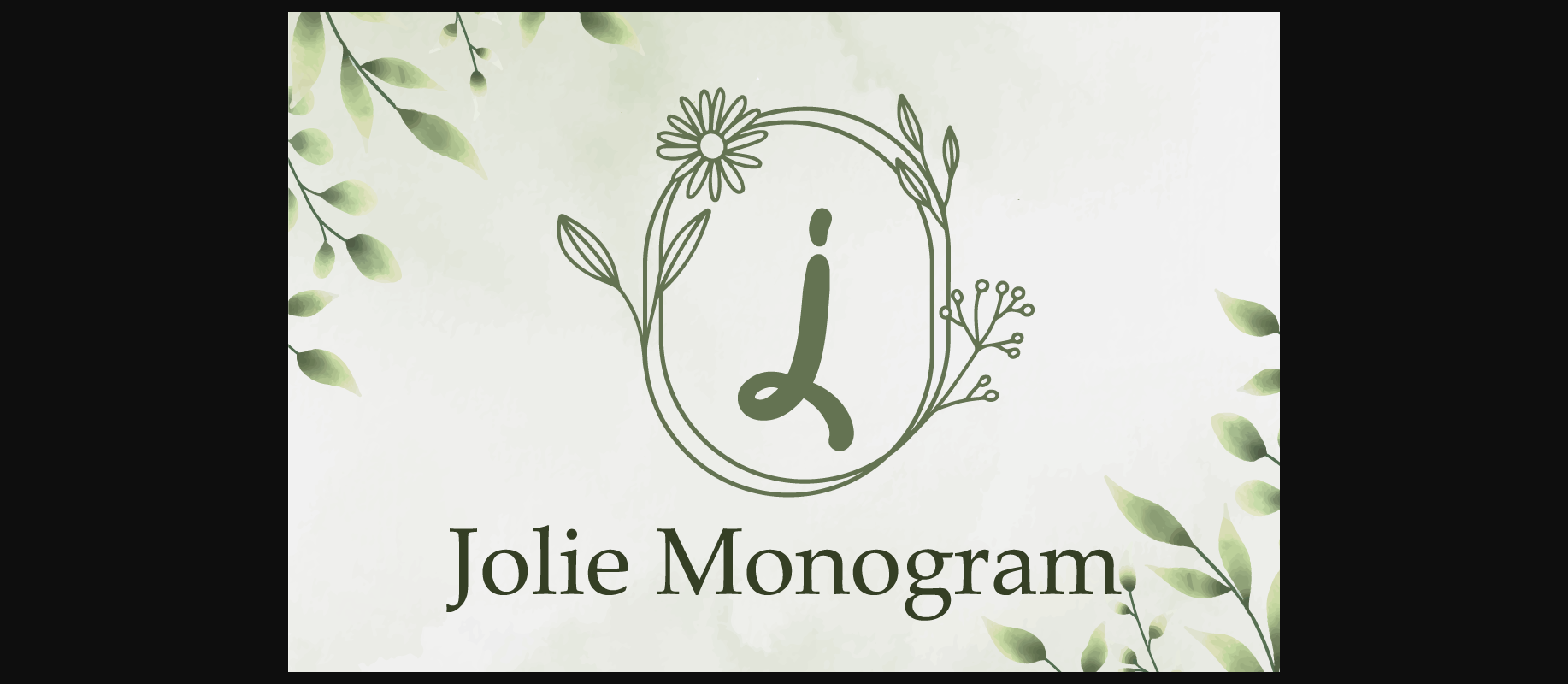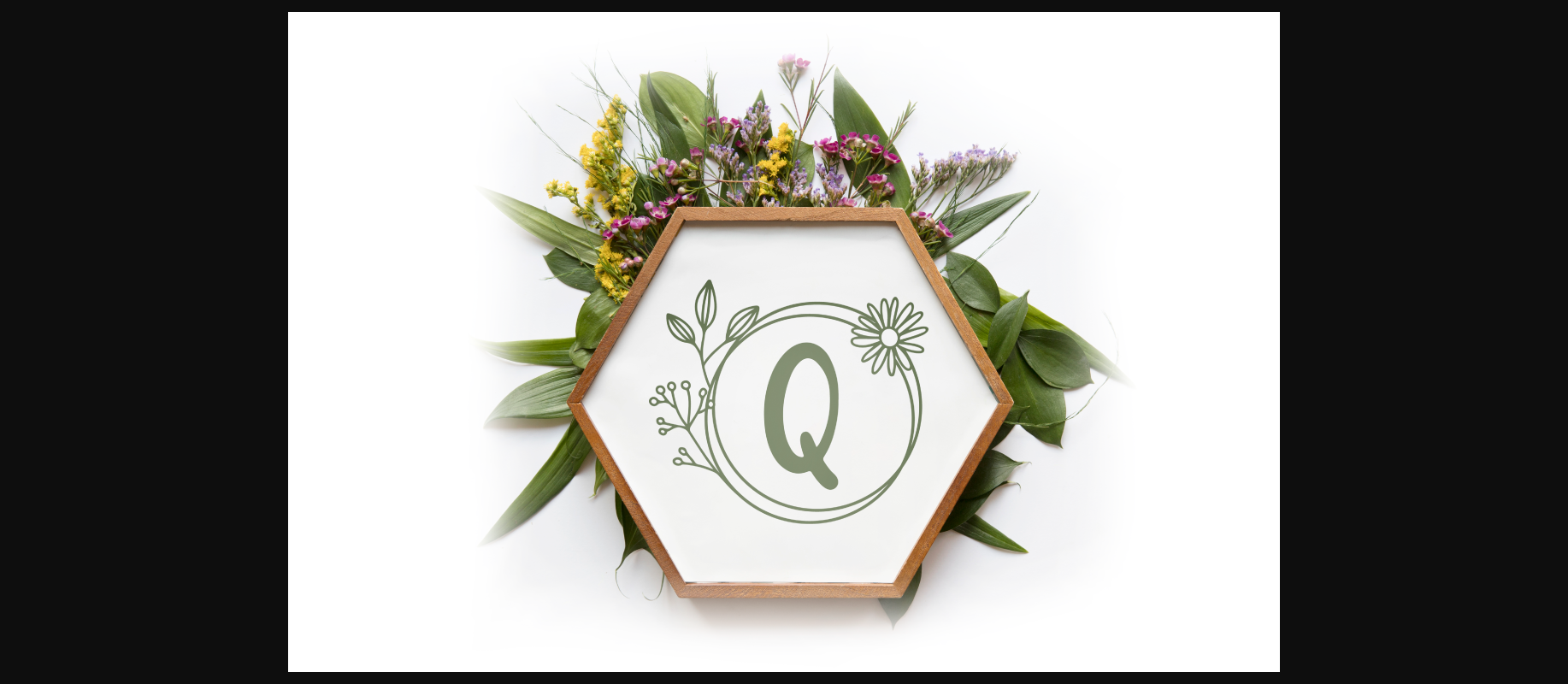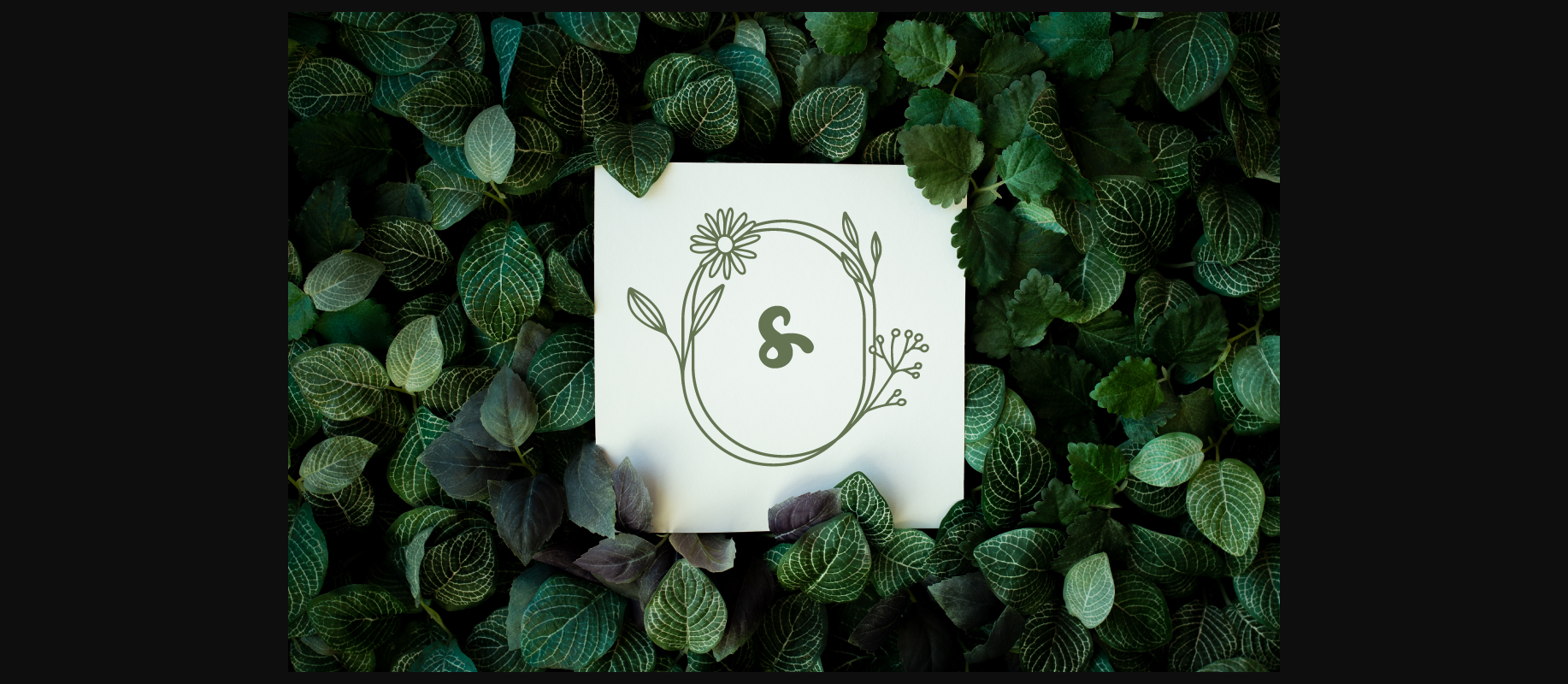
About Jolie Monogram Font
Jolie Monogram is a cool, delicate decorative font. Whatever the topic, this font will be a wonderful asset to your font library, as it has the potential to enhance any creation.